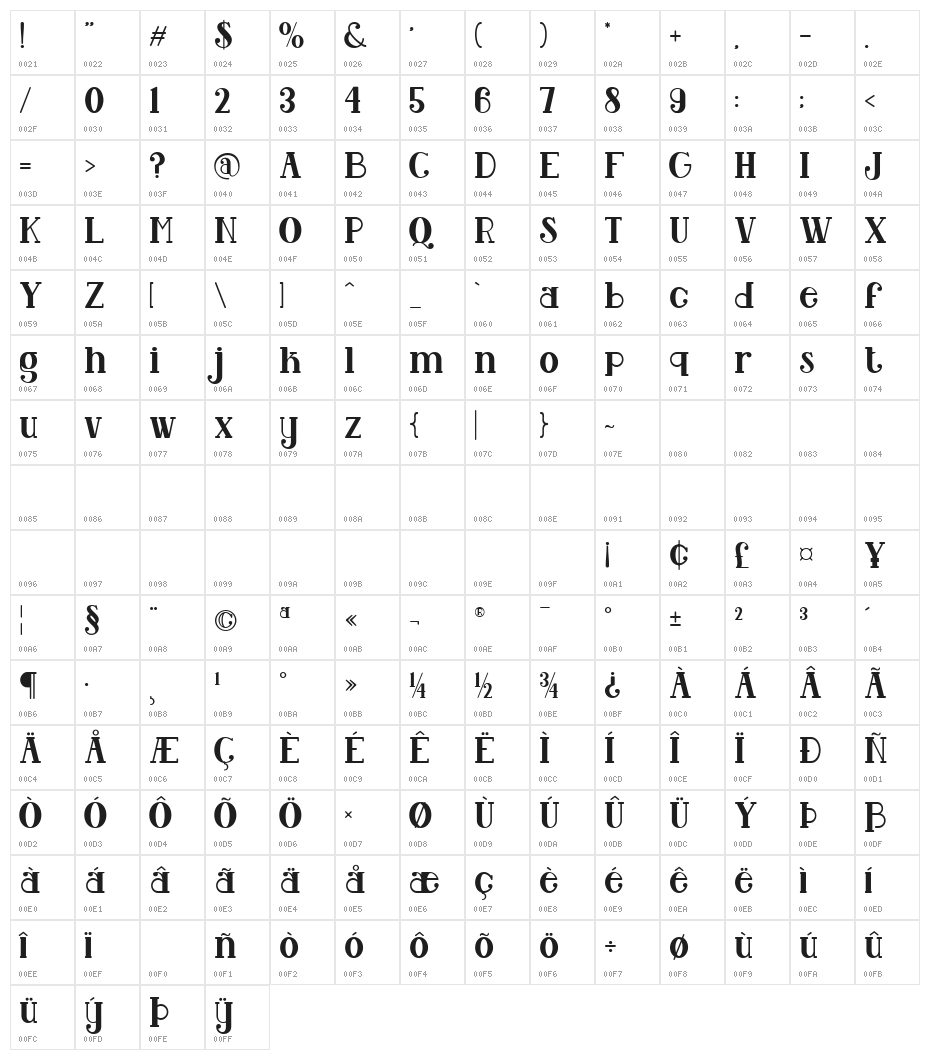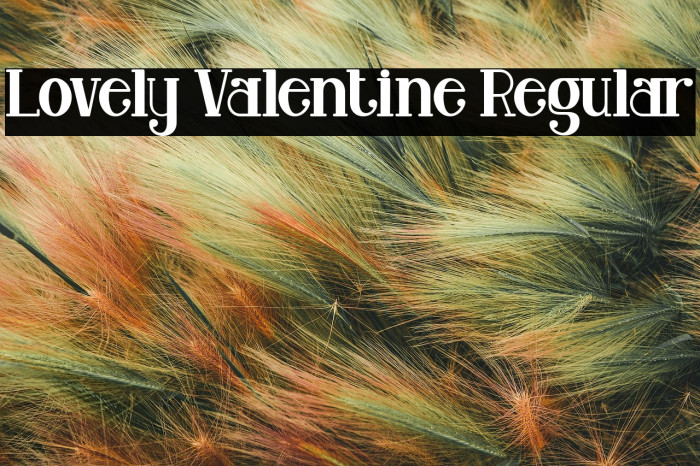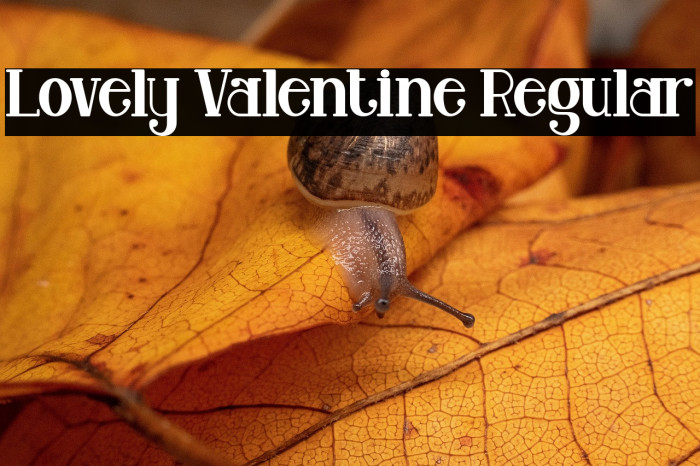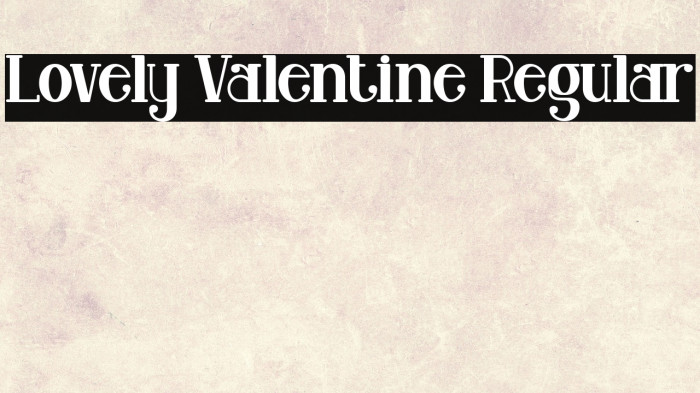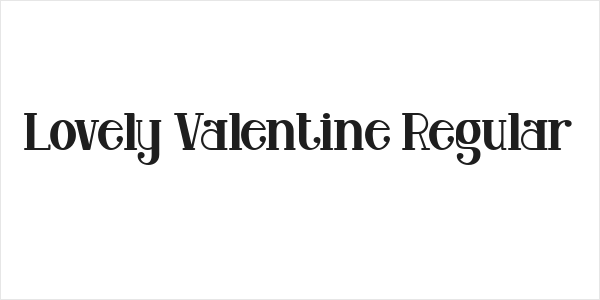
Lovely Valentine Regular Font
Lovely Valentine Regular Description
This font features a playful and romantic style, characterized by its elegant curves and whimsical serifs. The uppercase letters are bold and striking, with unique flourishes that add a touch of charm. The lowercase letters maintain a consistent style, with rounded edges and a smooth flow. Numbers are equally bold, ensuring readability while maintaining the font's overall aesthetic. Special characters are designed with the same attention to detail, making them perfect for creative projects. The font's distinctive style makes it ideal for designs that require a touch of elegance and personality.
| Overall Style | Romantic, Playful |
| Proposed Projects | Ideal for wedding invitations, greeting cards, romantic branding, and decorative posters. |